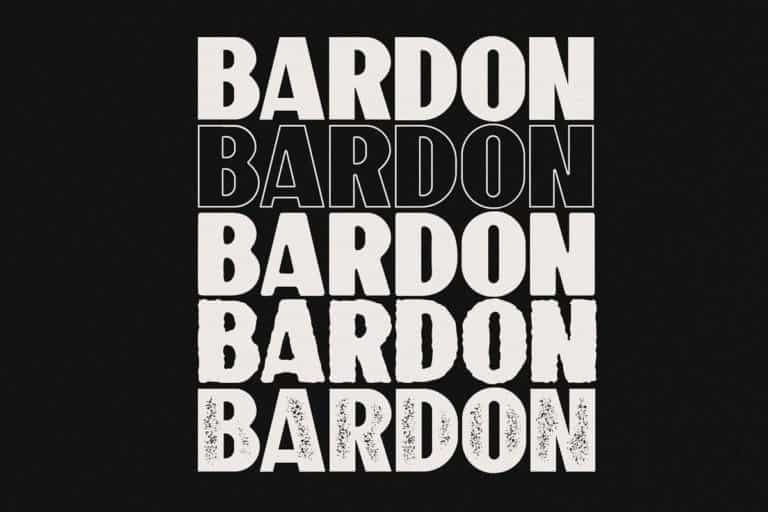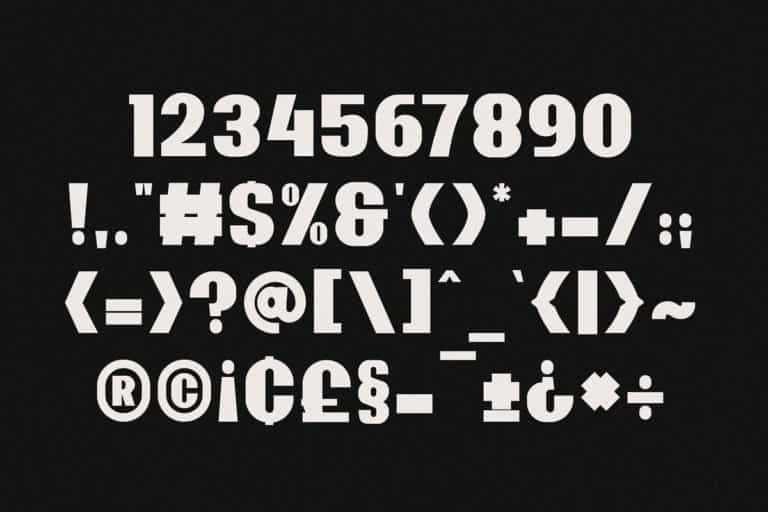
Bardon is a Sans serif font family with 10 Style Fonts. It is created and distributed by Sabr Creative. This is a classic sans serif typeface that has many stylistic alternates. This is just the right thing to add sweetness to your headlines, branding visual identity, editorial, poster and etc. That will make your presentation or logo even more stunning and thus stand out!